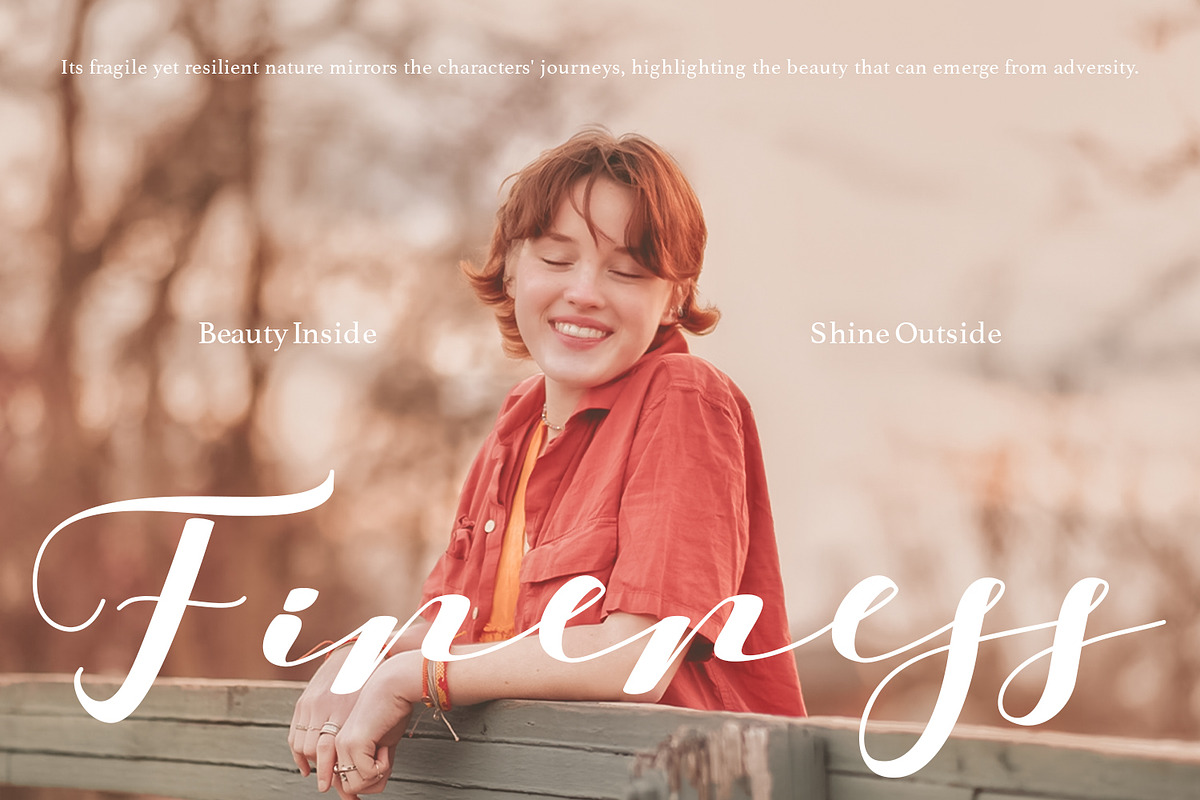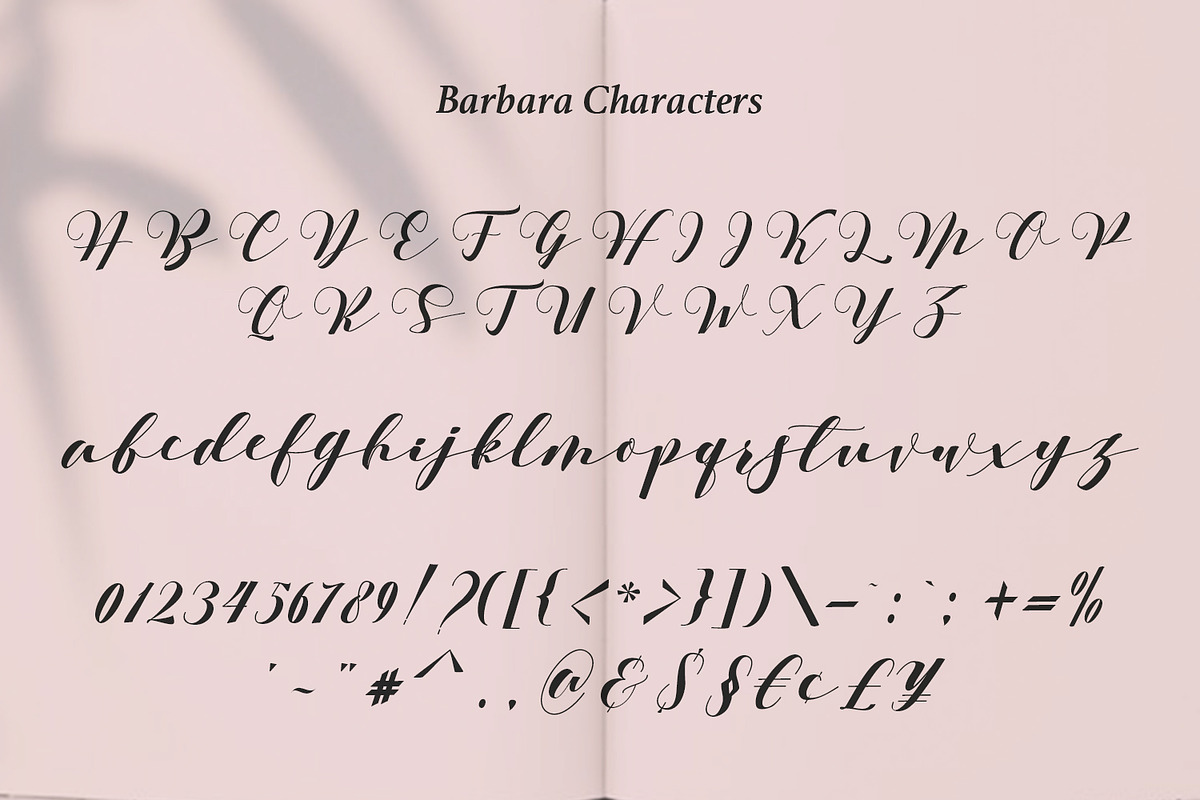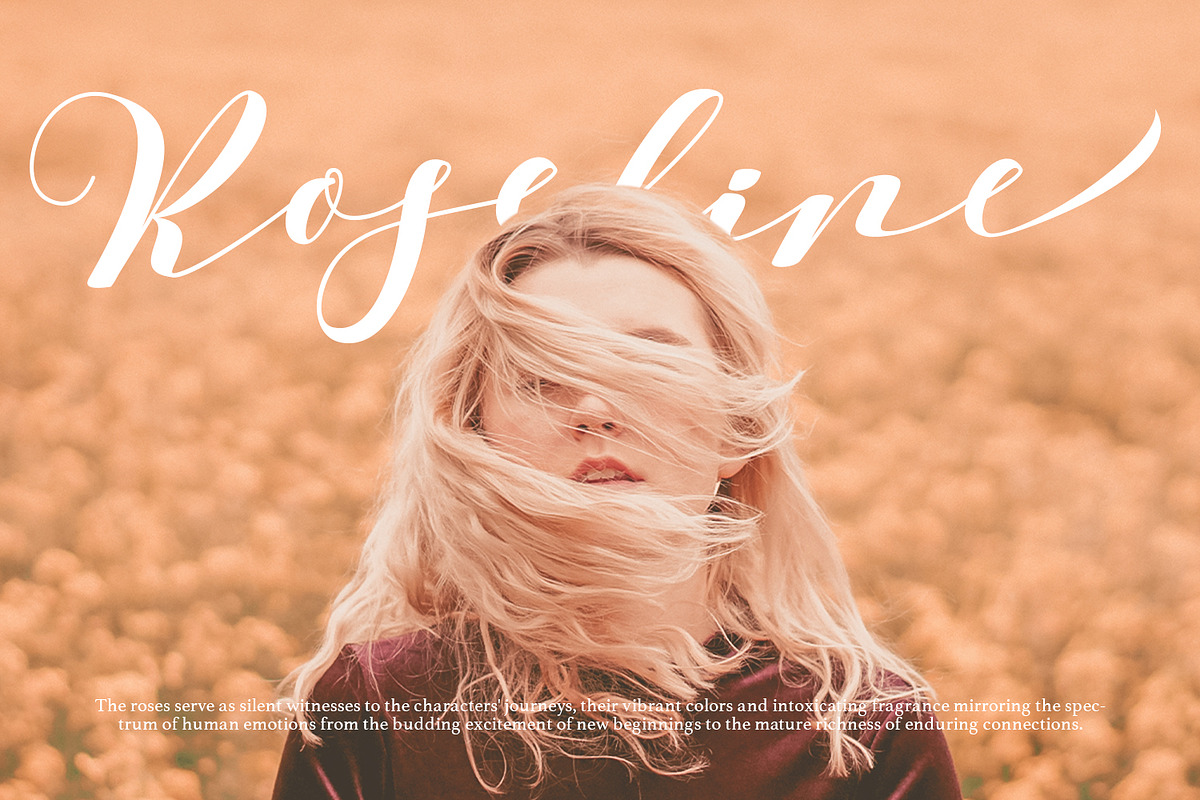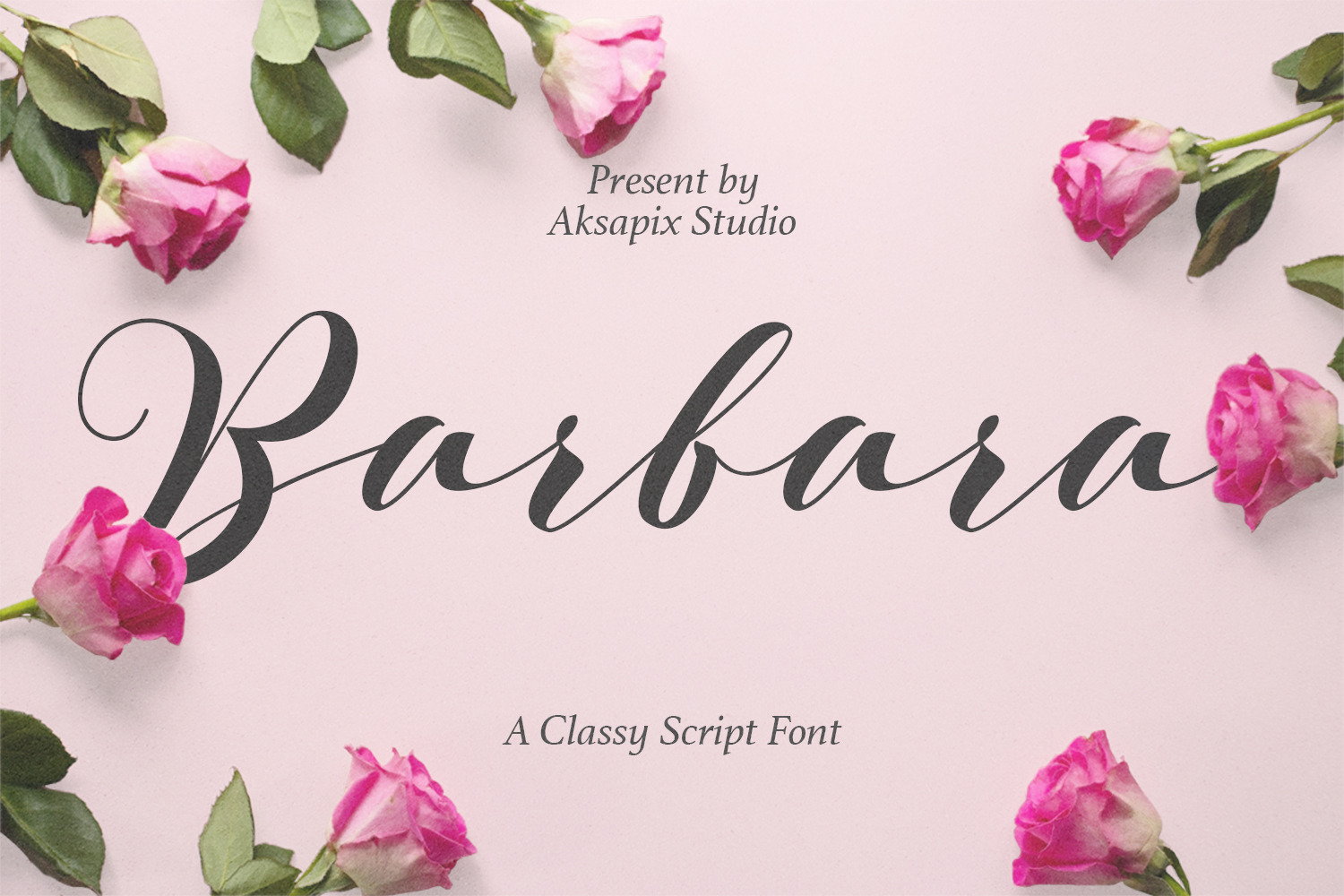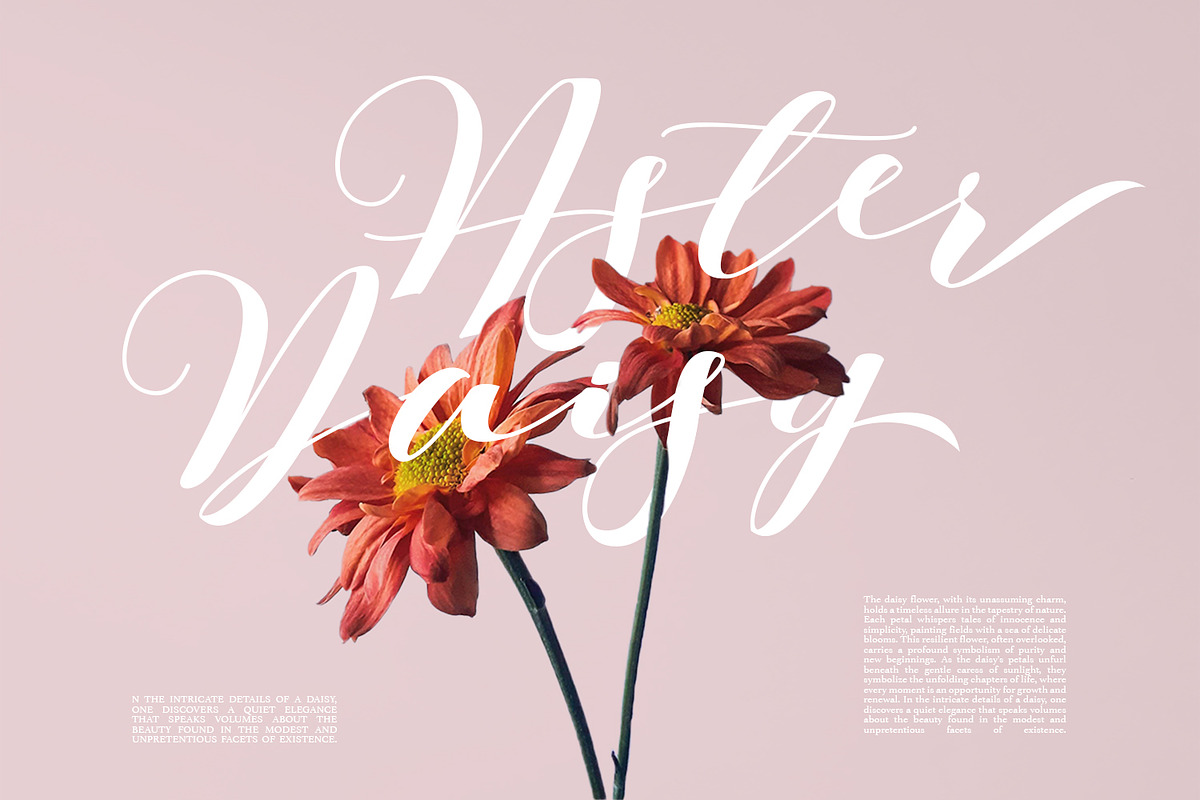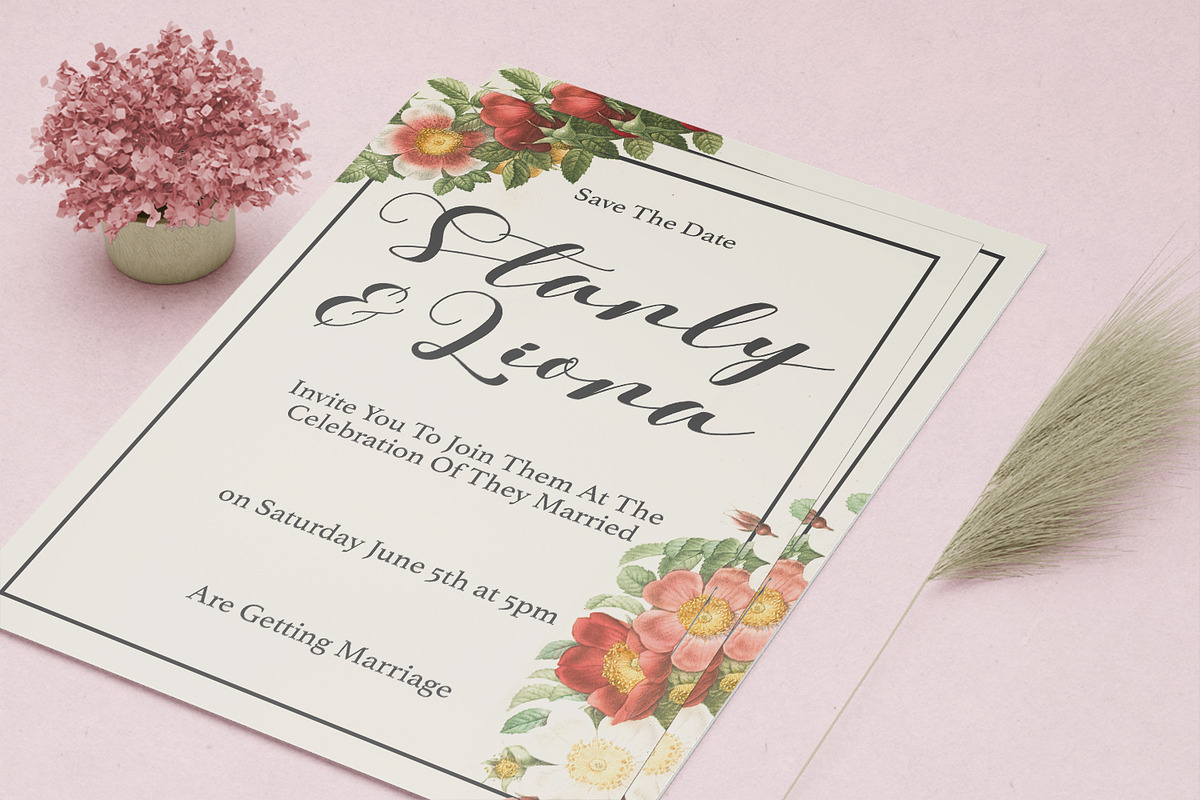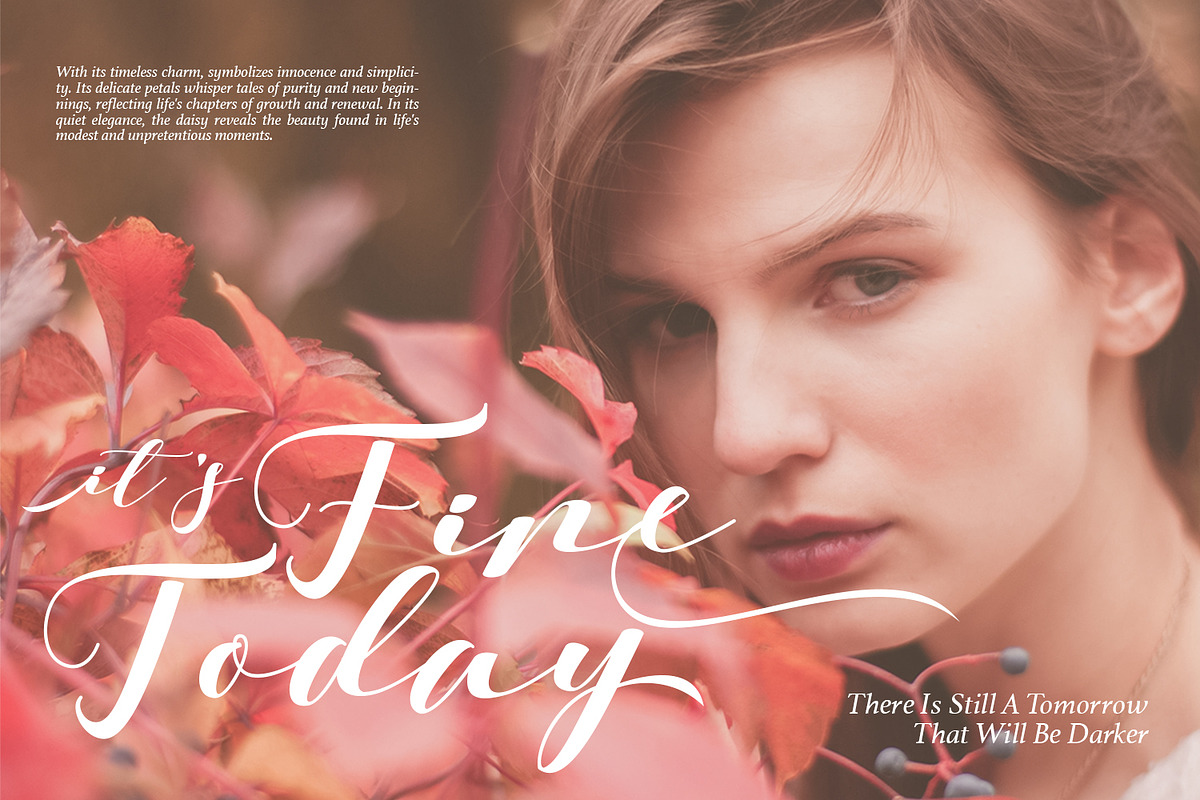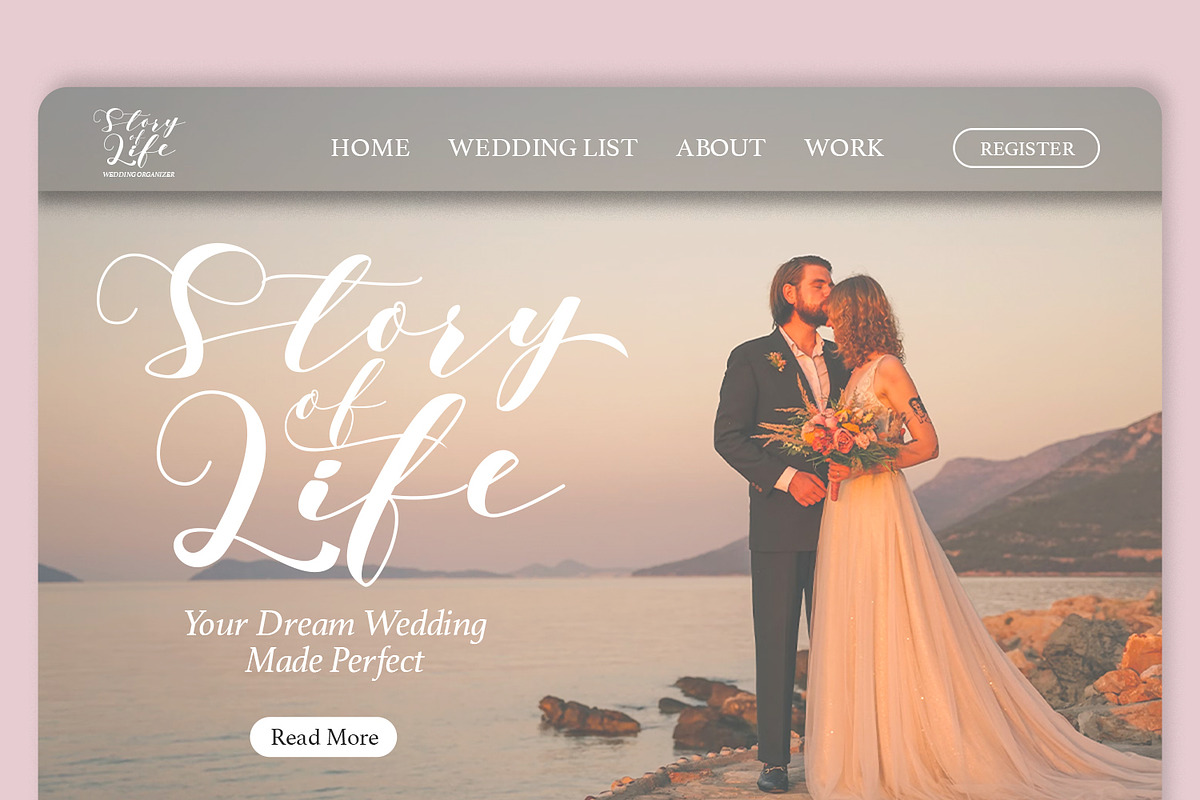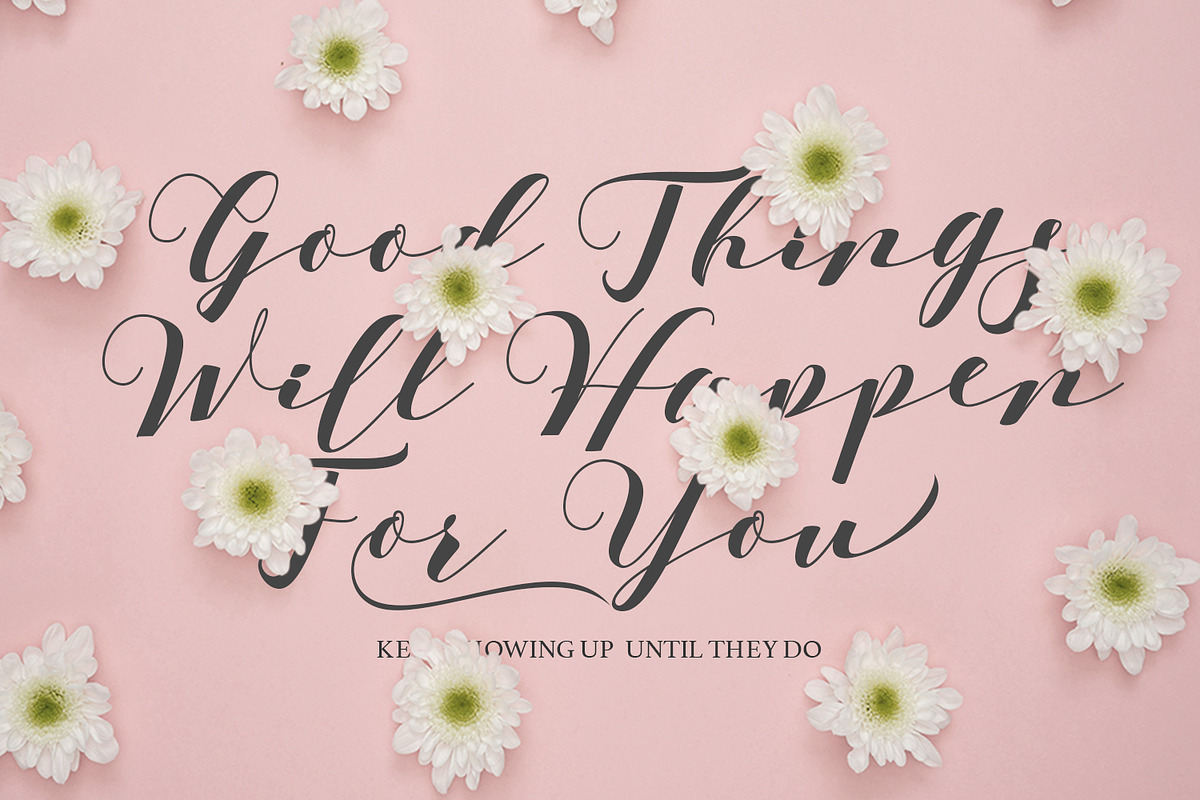
Barbara - A Classy Script Font
Barbara - A Classy Script Font this font has a feminine elegance with its graceful script style, making it a perfect choice for a variety of design applications. Whether you're working on a logo, wedding invitation, greeting card, social media design, and more, this font adds a touch of sophistication to any project.
- Punctuation & Numbers
- Stylistic Alternates:
Whether you're crafting a brand identity, event invitations, or social media posts, Barbara - A Classy Script Font infuses your designs with a sense of grace and timeless beauty. Elevate your projects with the subtle charm and sophistication that this font brings to the table.